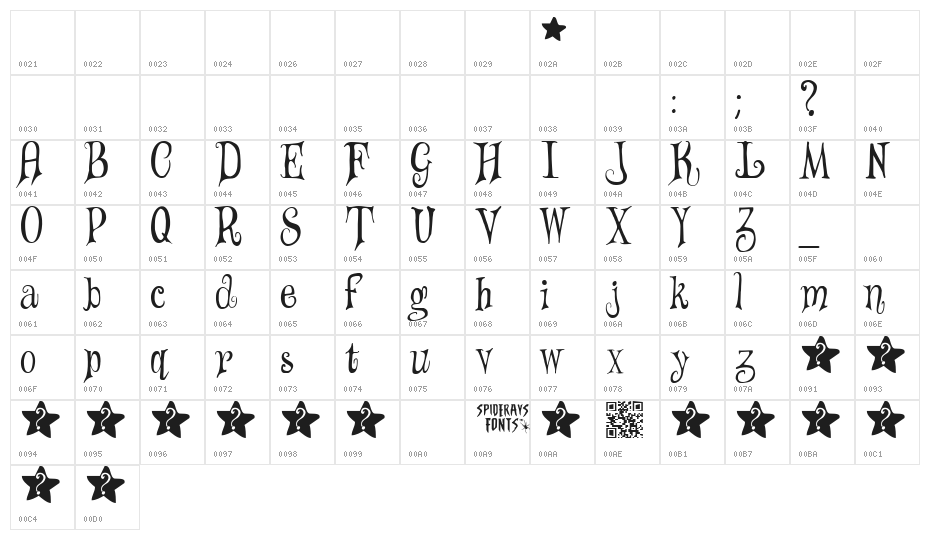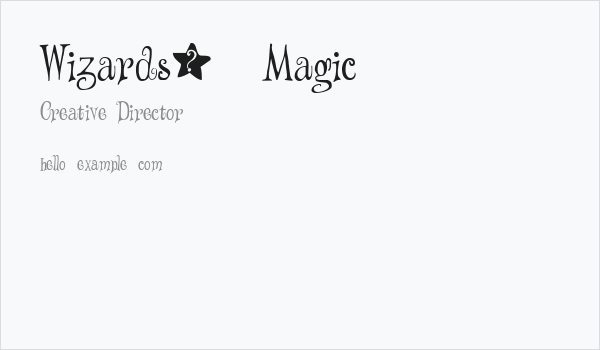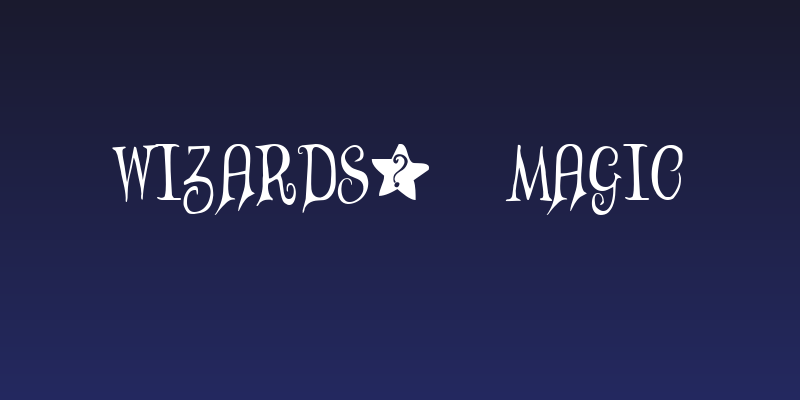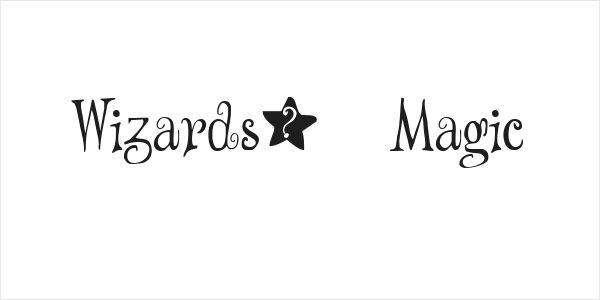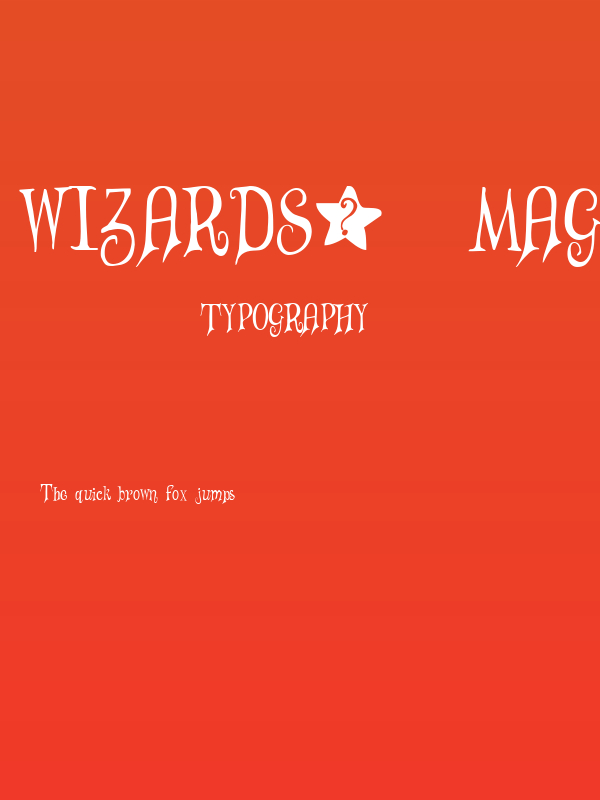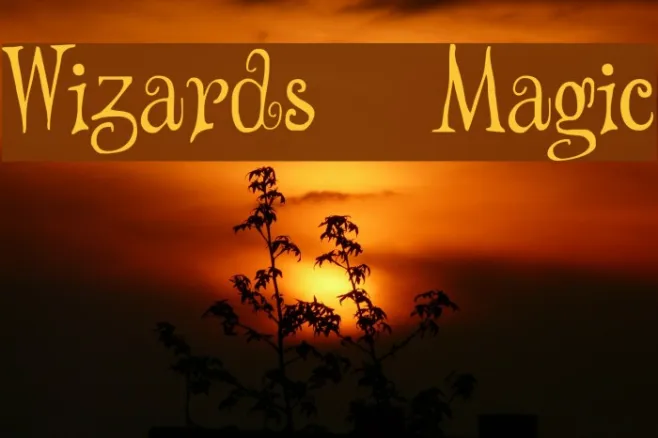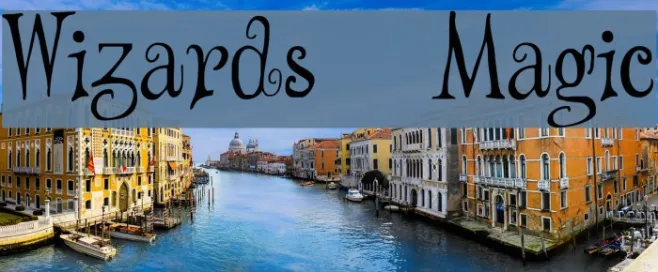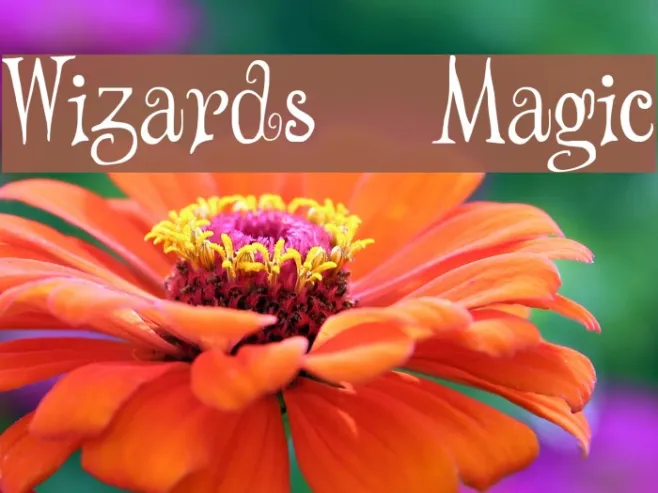
Wizards' Magic Font
Wizards' Magic Description
This font exudes a whimsical and magical aura, characterized by its playful and curvy letterforms. The uppercase letters feature elongated serifs and unique, decorative swirls that add a touch of fantasy. The lowercase letters maintain a consistent style with charming loops and curls, enhancing the font's enchanting appearance. The numbers and special characters are equally ornate, fitting seamlessly into the overall design. This font is perfect for projects that require a mystical or fairy-tale theme, offering a distinct and captivating visual appeal.
| Proposed Projects | Ideal for fantasy-themed book covers, magical event invitations, and whimsical branding. |